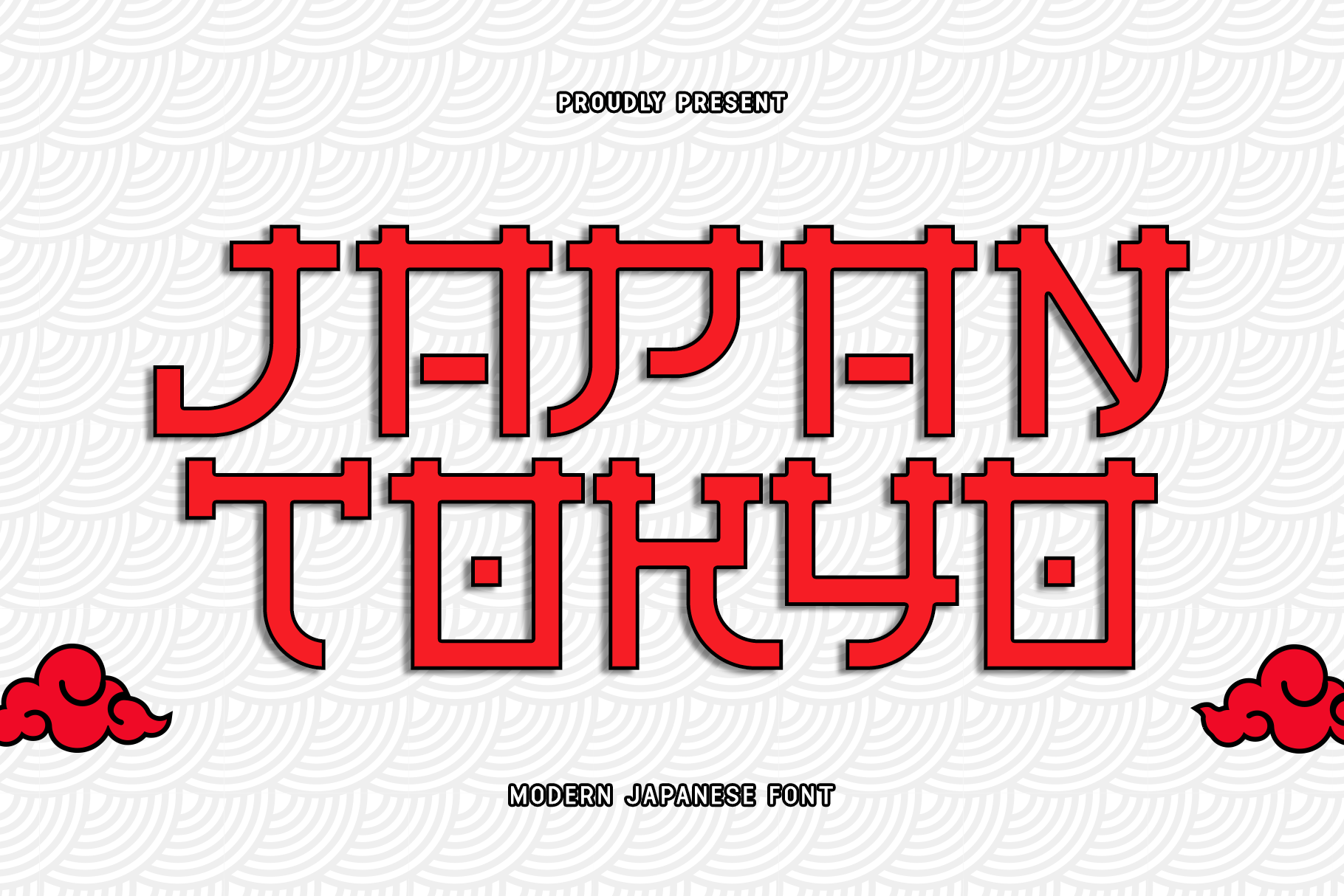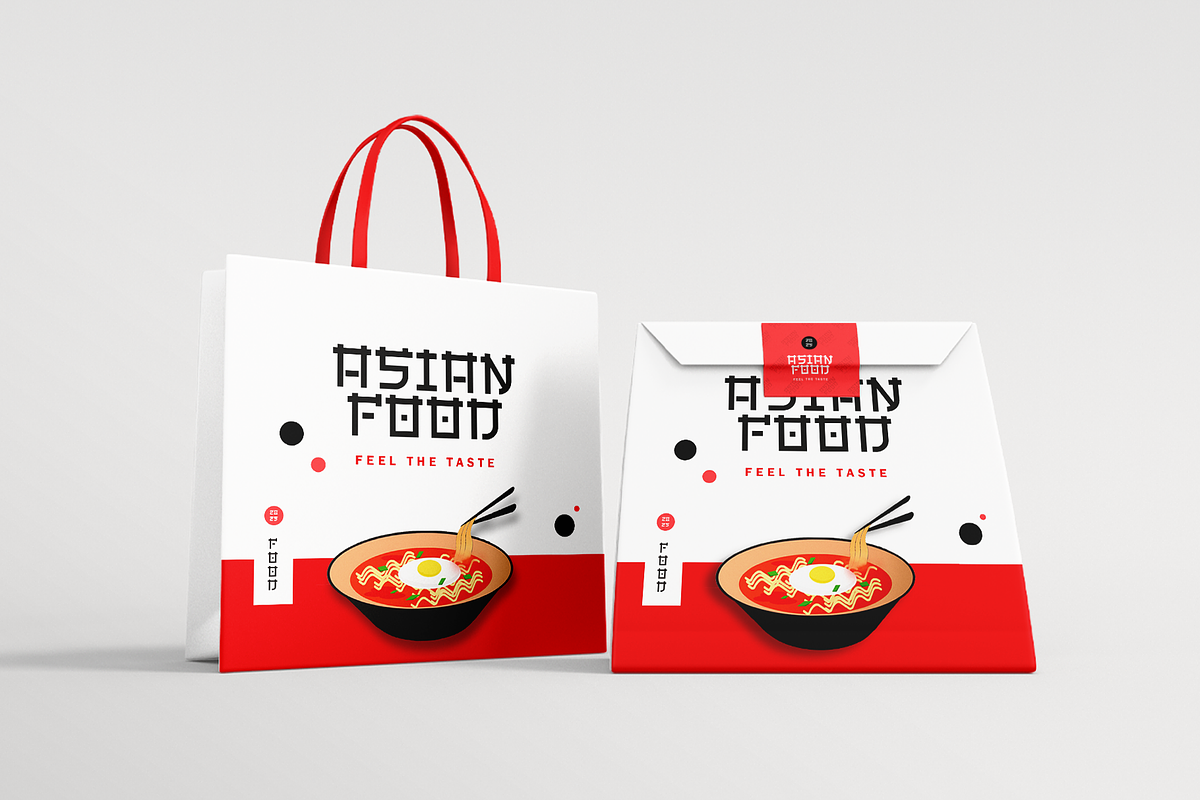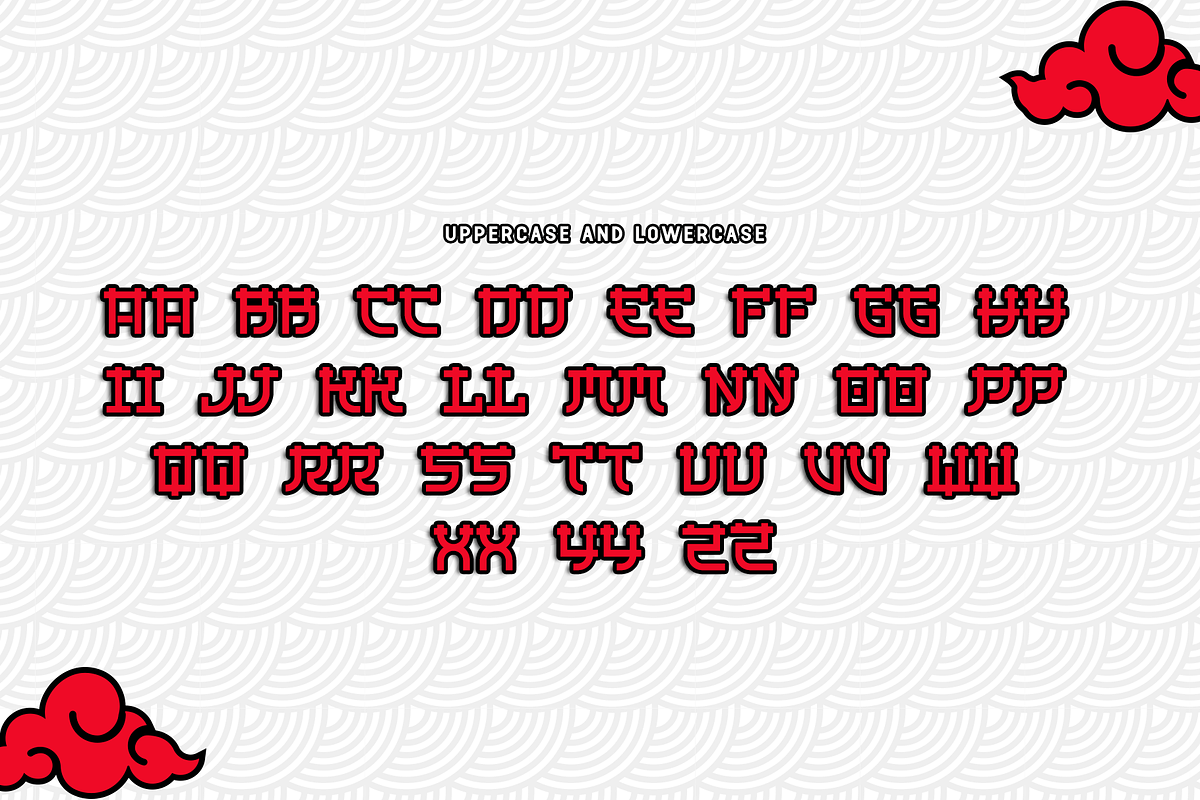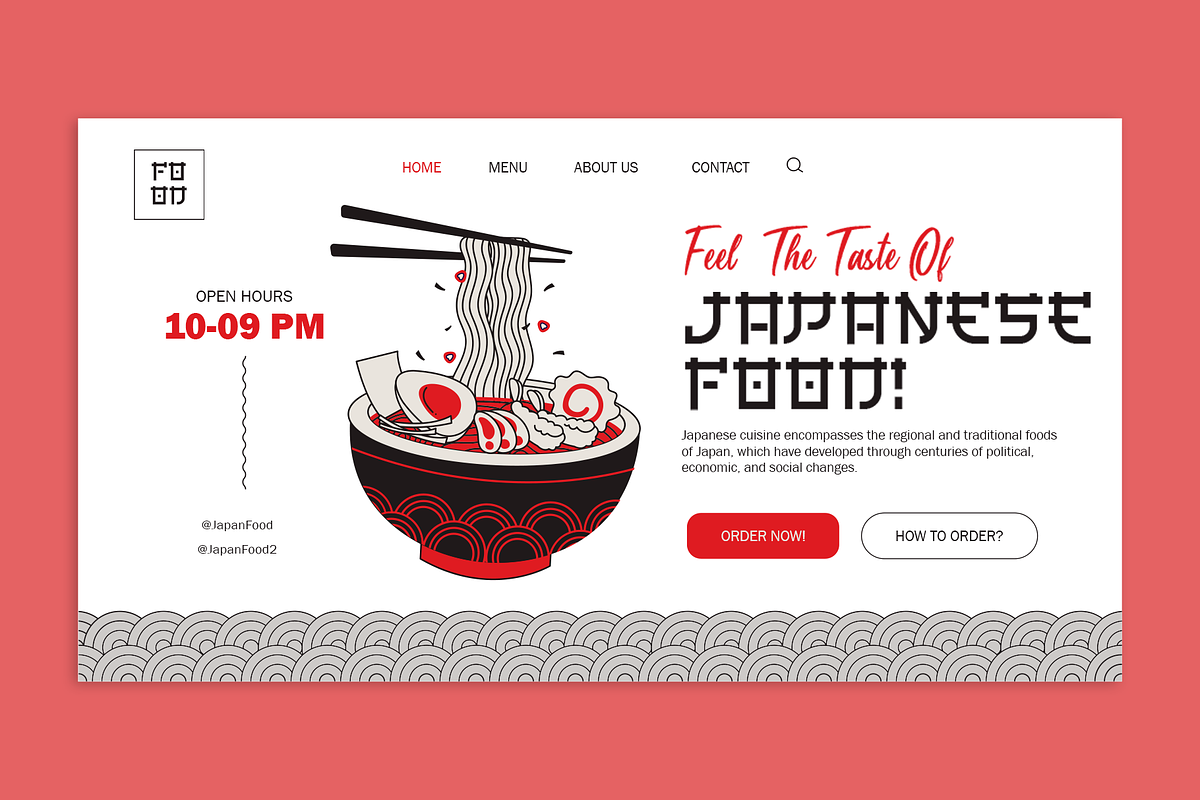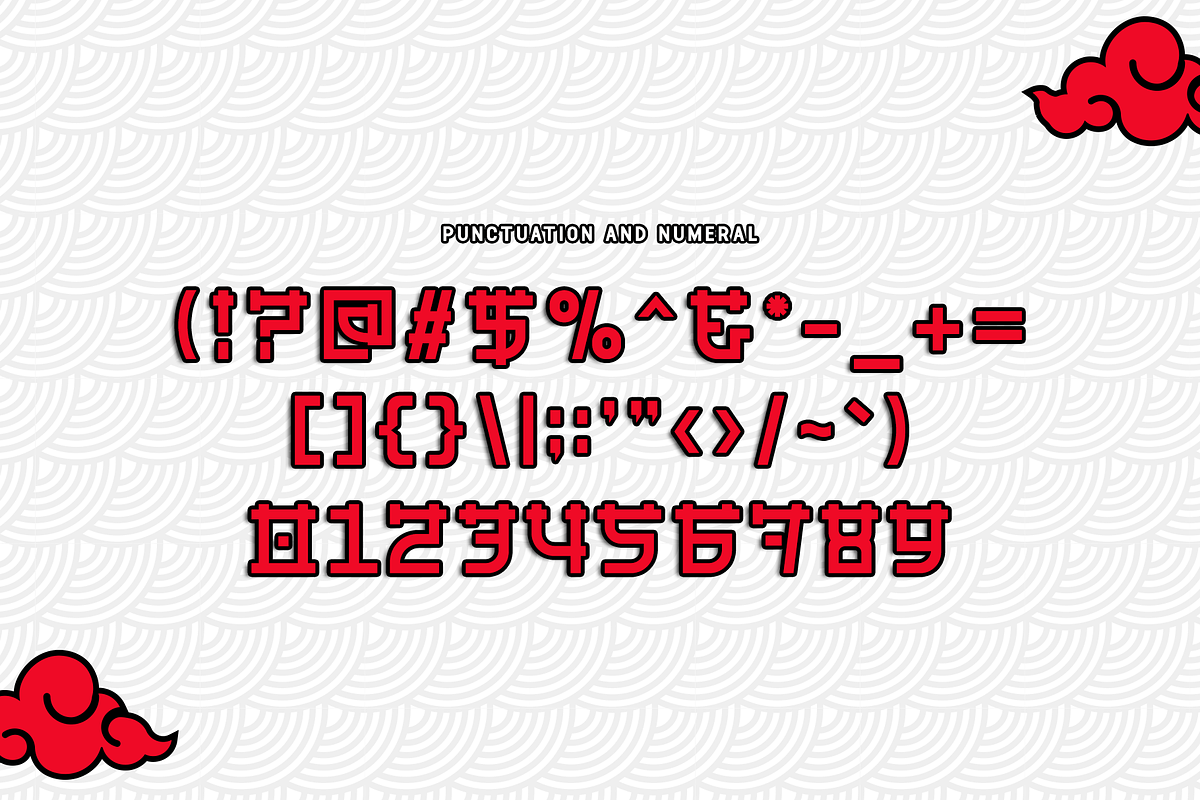
Japan Tokyo - Modern Japanese Font
Introducing "Japan Tokyo," a modern Japanese font that embodies urban sophistication with a touch of cultural flair. Perfect for graphic designers, typographers, and creatives seeking to infuse their projects with the vibrant energy of Tokyo, this font offers a unique typeface that blends traditional Japanese elements with a sleek, contemporary design.
Ideal for branding, posters, packaging, websites, and apparel, Japan Tokyo’s stylish and refined characters provide a dynamic and visually appealing aesthetic. Each letter is meticulously crafted to ensure readability and artistic precision, making your designs both impactful and culturally resonant.
The "Japan Tokyo" font includes a complete set of uppercase and lowercase letters, numbers, punctuation marks, and special characters. This versatile set ensures seamless integration into various design projects, from modern branding to eye-catching promotional materials.
Capture the spirit of Tokyo with Japan Tokyo, the modern Japanese font that combines urban sophistication with cultural flair.